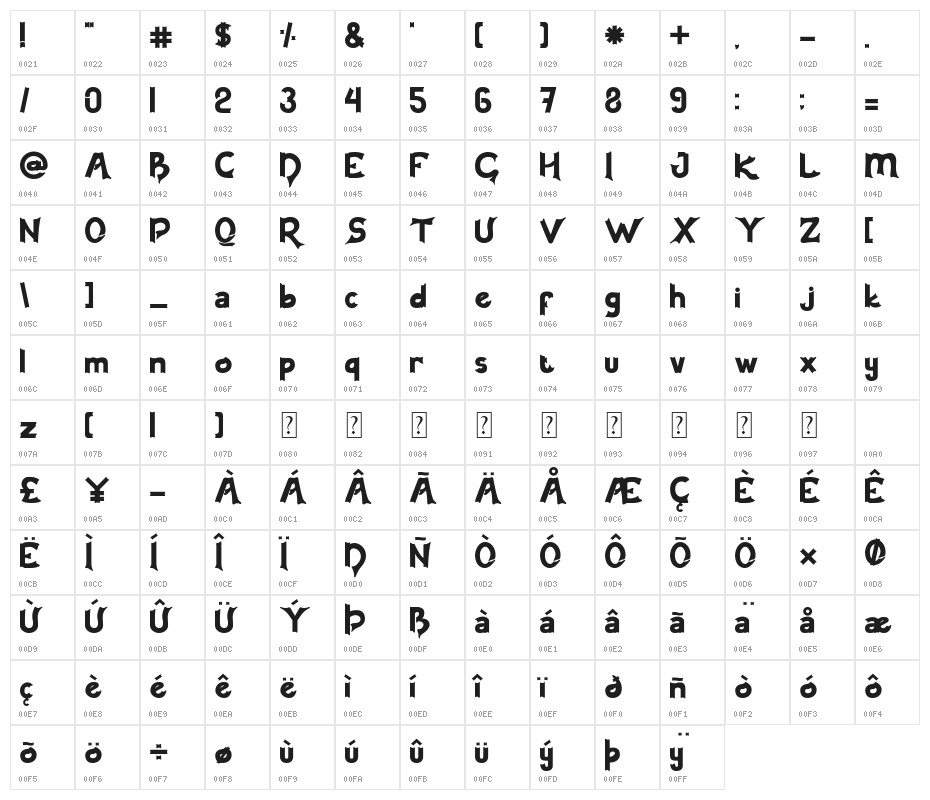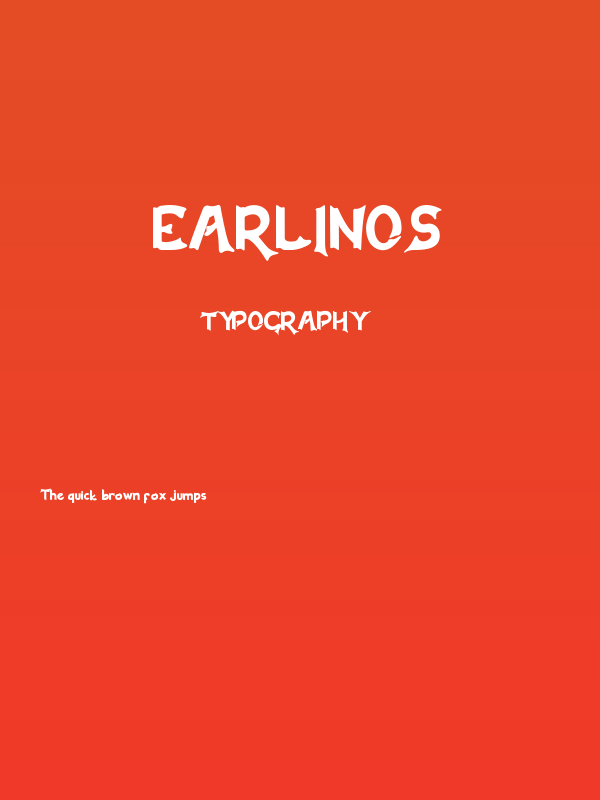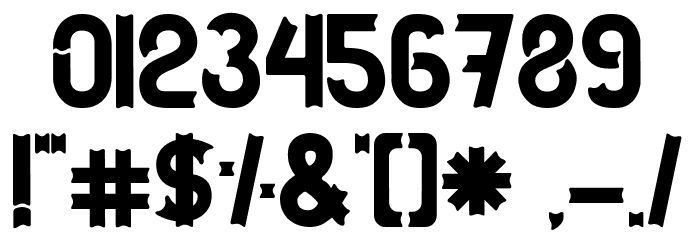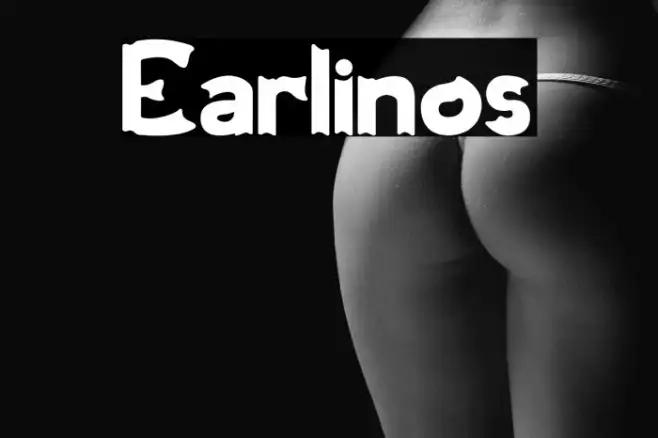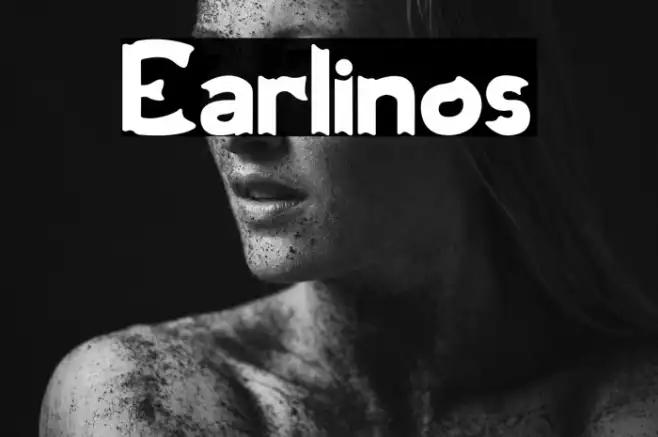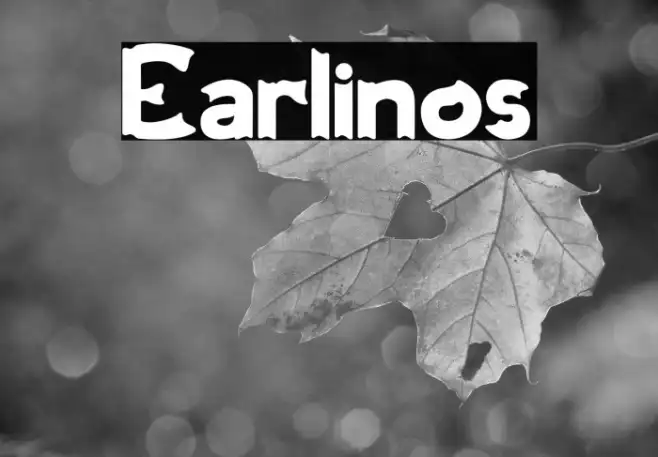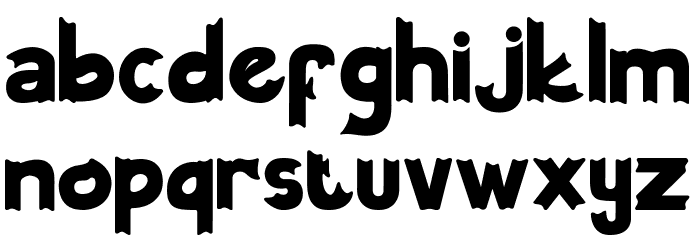
Earlinos Font
Earlinos Description
This font features a bold and distinctive style with a strong presence. The characters are crafted with unique, angular cuts and sharp edges, giving it a dynamic and edgy appearance. The uppercase letters are particularly striking, with exaggerated serifs and a slightly gothic influence. The lowercase letters maintain the boldness, with a consistent weight throughout. Numbers and special characters are equally bold, ensuring uniformity across all text. This font is ideal for making a statement, with its high impact and memorable design.
| Proposed Projects | Perfect for posters, album covers, branding, and any project needing a bold, impactful typeface. |